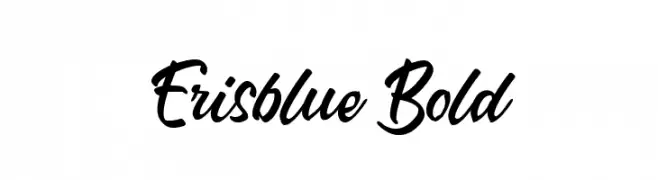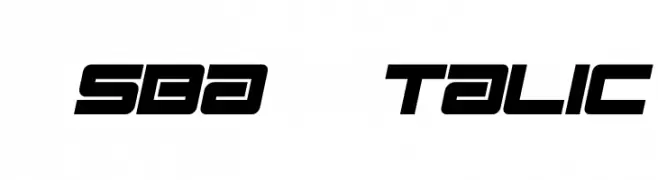
( Fonts by Nico Muslib )
Bold cursive script with a handwritten style.
A bold, futuristic italic font with geometric, angular characters.
( Fonts by Galdino Otten - galdinootten.com )
A playful, whimsical script font with flowing, cursive letterforms and decorative flourishes.
A decorative and bold font with angular details and star-like embellishments.
An ornate, cursive font with elaborate swirls and decorative flair.
A whimsical and playful font with curly, flowing letterforms.
A pictogram-based decorative font inspired by ancient and prehistoric art.